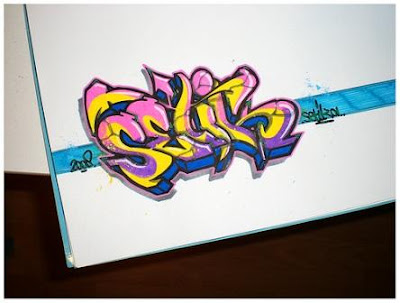
CRACKING your own alphabets to get full recognition. The coloring style on that graffiti alphabets is so unique. Colorful and dynamic. See for your self the mixture of its color, yellow, pink, purple and blue. The arrowed style alphabets still being favor. For background is only dominated by light blue line. Is pen work of art, see the texture of the color. That kind of coloring style can be made by pen color. Quite nice.